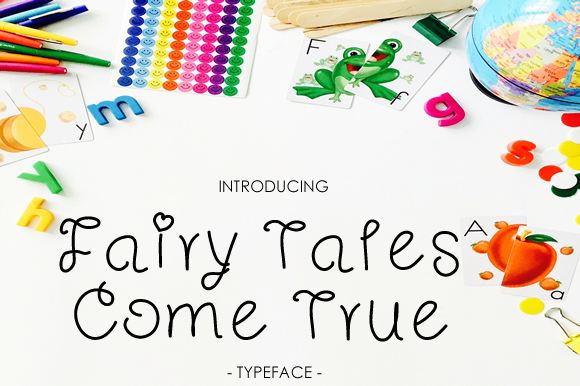
Fairy Tales Come True Font
About Fairy Tales Come True Font
Fairy Tales Come True is a gorgeous and simple handwritten cursive font, perfect for girly designs and more! This font looks great in feminine, floral designs and works well as a display or headline to your work.